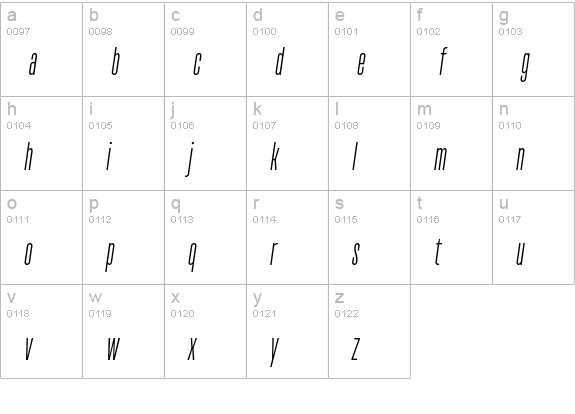
TT Bluescreens Italic Font Details
TT Bluescreens Italic is a distinctive, italic variant in the TT typeface family \xE2\x80\x94 well suited to design and typography projects.
TT Bluescreens Italic is a modern and sleek font that exudes a sense of sophistication and elegance. Its clean lines and stylish curves make it perfect for a wide range of design projects, from branding to editorial design. The italicized style adds a touch of flair and creativity, making your text stand out with a touch of modernity. And the best part? TT Bluescreens Italic is completely free to download at FontsMarket.com! This means you can easily access this beautiful font and use it in your projects without any cost. So why wait? Add a touch of elegance and style to your designs with TT Bluescreens Italic today.